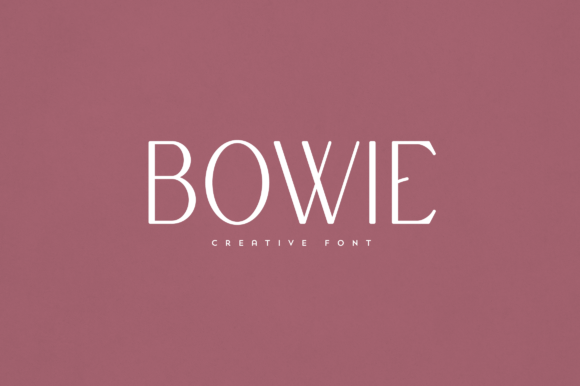
When Typography Meets Magic
Have you ever stared at a beautiful logo or a stunning magazine cover and wondered what made it so captivating? Was it the colors, the composition, or perhaps the typography itself? For designers, the right font can be the secret ingredient that elevates a design from ordinary to extraordinary.
That’s where the Bowie Font comes in – a sophisticated and adaptable typeface that adds a touch of elegance to any project. Whether you’re crafting a brand identity, designing home decor, or creating product packaging, the Bowie Font is the perfect companion to help you convey your unique vision.
With its versatility and timeless charm, the Bowie Font is an invaluable asset for designers looking to add a dash of sophistication to their work. In this article, we’ll delve into the world of this enchanting font and explore its many uses and benefits.
Bowie Font Key Features
- Font Family: Bowie is a sans-serif font family designed by Jeremy Bailey and released in 2013. It is available in various styles, including regular, bold, italic, and bold italic.
- Character Count: The Bowie font family includes a large character set, including Latin, Greek, and Cyrillic scripts, as well as punctuation and special characters.
- Size and Resolution: The Bowie font family is available in various sizes, including 14, 24, and 48 points. It is designed to work well at high resolutions, making it suitable for use in digital and print applications.
- Unique Characteristics: The Bowie font family is known for its clean and modern design, with a distinctive geometric shape and a wide range of ligatures and alternates. It is also highly legible, making it suitable for use in body text and headings.
Bowie Font Review
First off, let’s talk about what I love about the Bowie Font. It’s ✨ sleek, ✨ modern, and ✨ versatile. The clean lines and minimalist aesthetic make it a great choice for anything from logos to body text. I also appreciate how it works well in both digital and print formats.
- Works well in digital formats, including social media and websites
- Can be used in a variety of print materials, such as business cards and brochures
- Great for creating a modern and edgy look
Now, let’s talk about some limitations. The Bowie Font can be a bit ✨ overused, which may make it less effective in certain contexts. Additionally, it may not be the best choice for projects that require a more traditional or classic look.
- May be overused in certain contexts, making it less effective
- May not be suitable for projects that require a more traditional look
Overall, I think the Bowie Font is a solid choice for designers who want a modern and sleek look. While it may have some limitations, it’s a versatile and effective font that can be used in a variety of projects.
Getting the Most Out of Bowie Font
For best results, use the Bowie Font in bold or italic styles to create a dramatic effect. Experiment with different font sizes and combinations to achieve a unique look.
The Bowie Font is ideal for creating bold, eye-catching titles and headings. Use it in graphic design, logo creation, and advertising to make a lasting impression.
Alternatives to Bowie Font
Montserrat is a sans-serif font designed by Julieta Ulanovsky. It is perfect for digital use, including websites, apps, and social media platforms. Montserrat has a clean and modern look, making it ideal for displaying large amounts of text. Compared to Bowie Font, Montserrat has a more geometric and structured feel, with a focus on legibility.
Inter is a sans-serif font designed by Rasmus Andersson. It is designed for digital use, with a focus on clarity and readability. Inter has a more minimalist and neutral look compared to Bowie Font, making it suitable for a wide range of design applications, from corporate branding to editorial content.